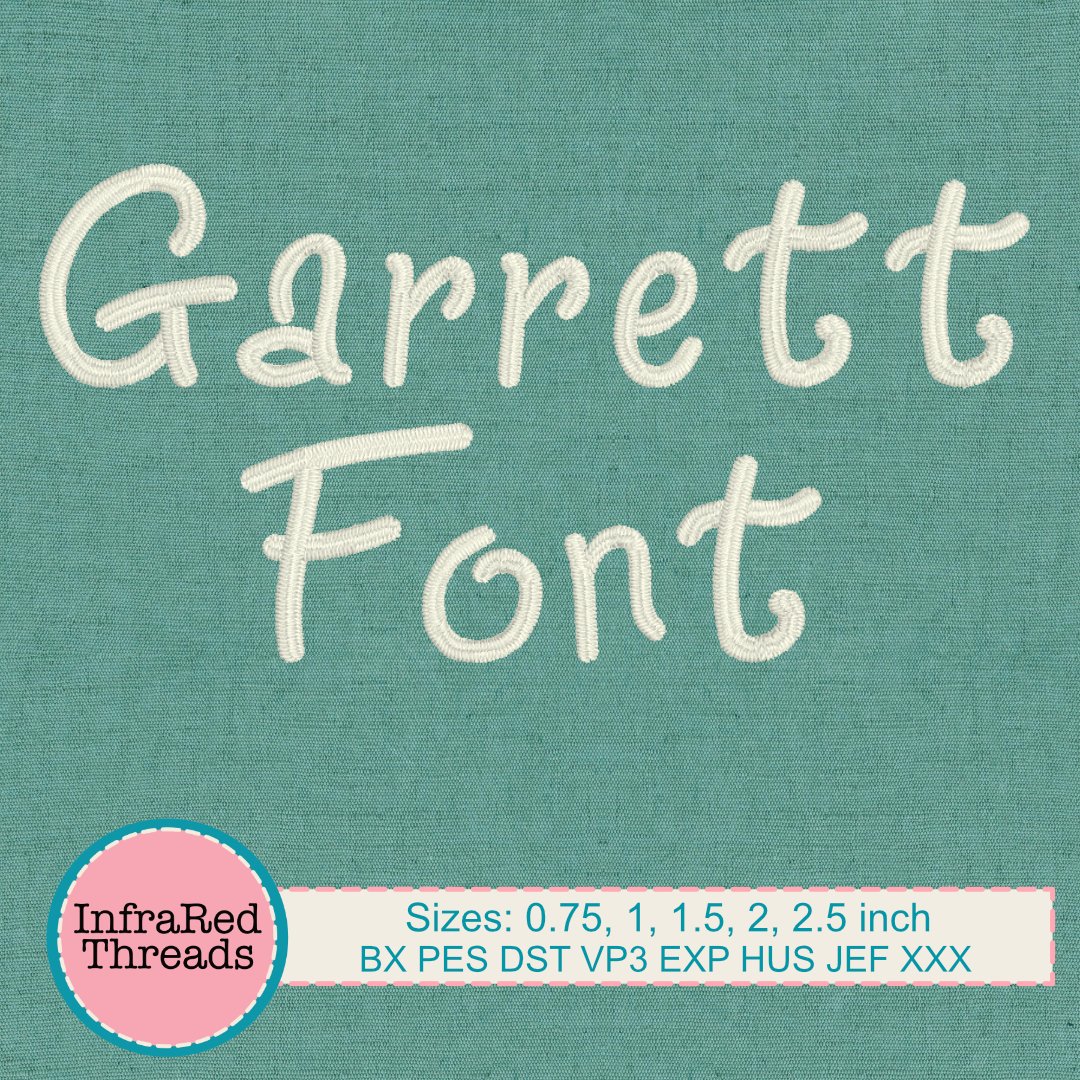
Garrett Embroidery Font – Casual Rounded Font in 5 Sizes - BX Included
The Garrett Font is a playful, rounded embroidery font with a handwritten feel. Its slightly quirky style adds personality without being overly whimsical, making it perfect for kid-friendly projects, modern crafts, or casual monograms.